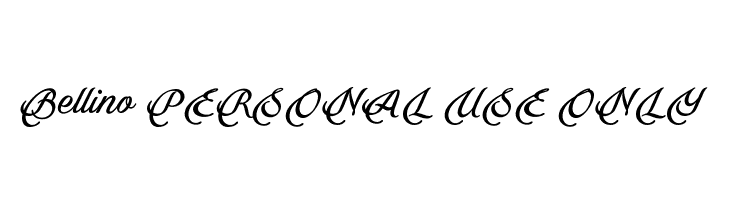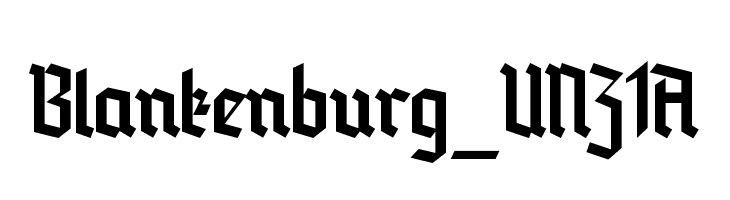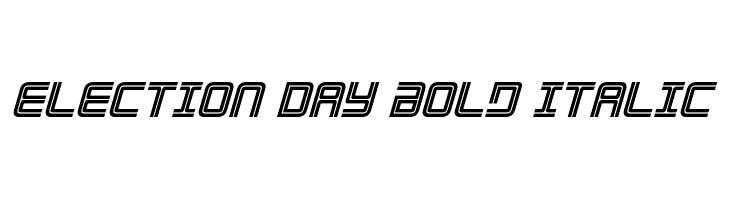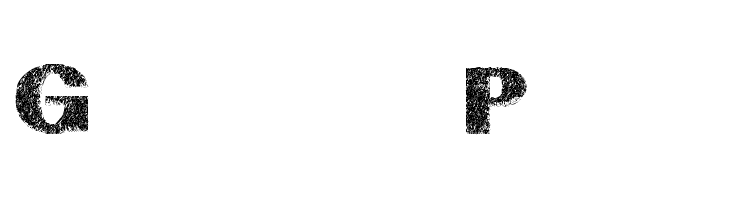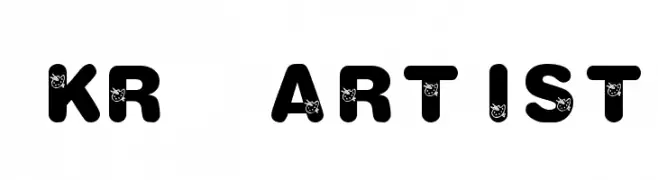
A bold, angular blackletter font with a Gothic, medieval aesthetic.
A playful and casual handwritten font with fluid, dynamic strokes.
A playful, bold handwritten font with rounded, consistent strokes.
A bold, distressed font with a rugged, vintage appearance.
A bold, modern sans-serif font with a strong, impactful presence.
A bold, geometric font with a modern, futuristic style.
An ornate and decorative font with bold, swirling letterforms.
A playful, hand-drawn style font with bold, rounded characters.
A geometric, modern font with sharp angles and a clean, technical appearance.